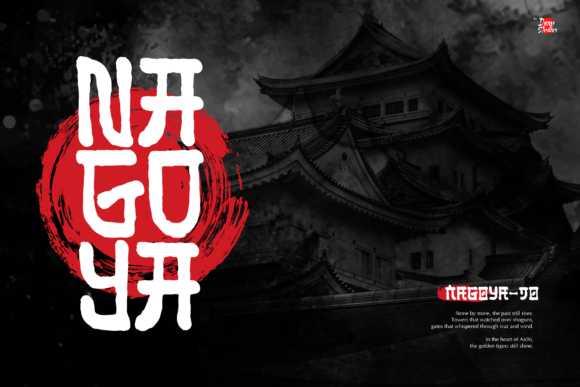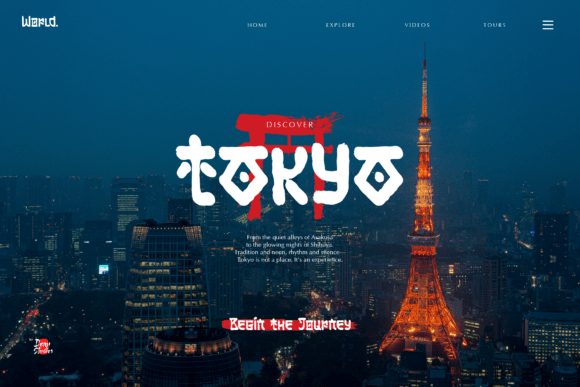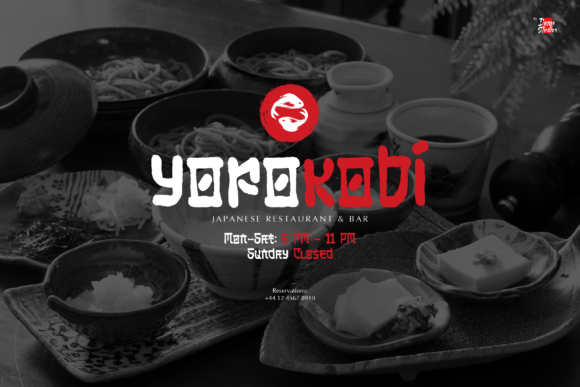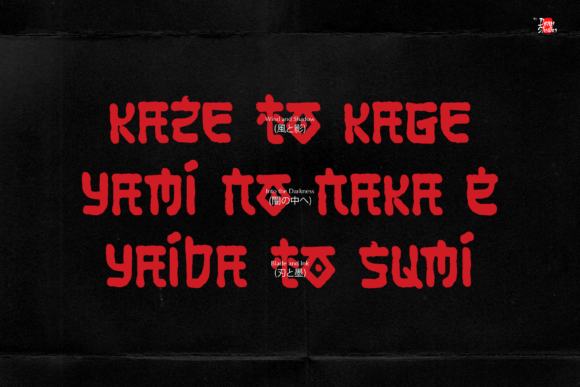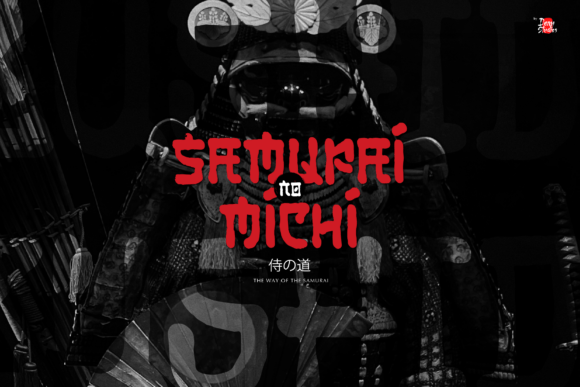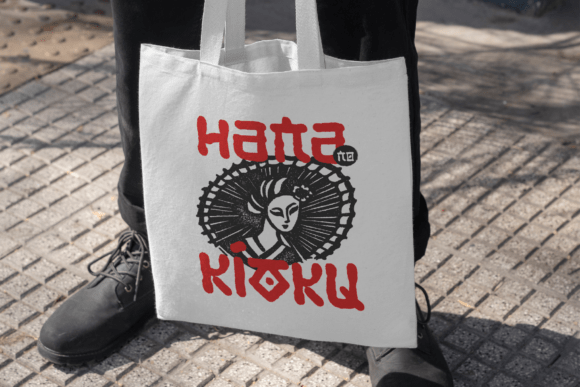
Hekatte Font: Elevate Your Creativity with this Unique Japanese Brush Font
In the world of typography, few fonts manage to capture the essence of cultural heritage and artistic expression as beautifully as the Hekatte Font. This incredibly unique Japanese brush font has been masterfully designed to become a true favorite among designers, crafters, and creative enthusiasts alike. With its distinctive charm and elegant strokes, Hekatte Font has the potential to bring each of your creative ideas to the highest level, adding a touch of sophistication and cultural flair to your projects.
The Beauty of Hekatte Font
Hekatte Font is a stunning example of Japanese typography, inspired by the country’s rich cultural heritage and traditional brush calligraphy. The font’s design is characterized by its expressive brush strokes, which convey a sense of movement and fluidity. Each character is carefully crafted to showcase the beauty of the Japanese language, with intricate details and subtle nuances that make it a joy to use.
One of the standout features of Hekatte Font is its versatility. Whether you’re working on a branding project, a craft design, or a digital artwork, this font can adapt to any style or theme. Its unique blend of traditional and modern elements makes it an excellent choice for designers looking to add a touch of cultural authenticity to their work.
Why Choose Hekatte Font?
So, what sets Hekatte Font apart from other fonts in the market? Here are just a few reasons why designers and crafters are falling in love with this incredible font:
- Unique and Authentic Design: Hekatte Font is a genuine representation of Japanese culture, offering a distinctive and authentic look that will set your designs apart.
- Highly Versatile: This font can be used in a wide range of projects, from branding and advertising to crafting and digital art.
- Elegant and Sophisticated: Hekatte Font adds a touch of elegance and sophistication to any design, making it perfect for projects that require a high level of refinement.
- Easy to Use: With its clear and legible design, Hekatte Font is easy to read and use, even in smaller sizes.
Using Hekatte Font in Your Designs
Whether you’re a seasoned designer or a crafty enthusiast, incorporating Hekatte Font into your projects is easy and fun. Here are a few ideas to get you started:
- Branding and Logo Design: Use Hekatte Font to create a unique and memorable logo that reflects your brand’s personality and values.
- Crafting and Scrapbooking: Add a touch of cultural flair to your craft designs, scrapbooking projects, and DIY creations with Hekatte Font.
- Digital Art and Illustration: Combine Hekatte Font with your favorite digital art tools to create stunning illustrations, graphics, and artworks.
In conclusion, Hekatte Font is an exceptional Japanese brush font that offers a unique blend of cultural heritage, artistic expression, and versatility. Whether you’re a designer, crafter, or creative enthusiast, this font has the potential to elevate your projects and bring your ideas to life. With its elegant design, sophisticated charm, and ease of use, Hekatte Font is sure to become a favorite in your creative arsenal.